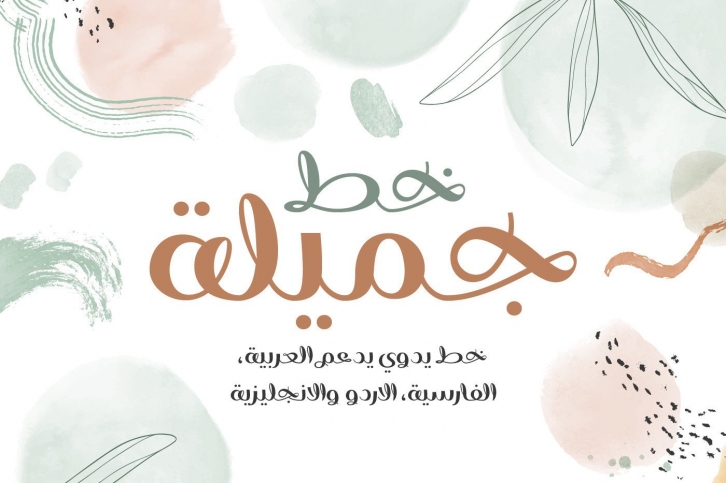
Gamila is a fresh and unique, one-weight Arabic script font which works well on a variety of projects. With its flowing characters, this font will be a great addition to your Arabic font library as it has the potential to elevate any creation.